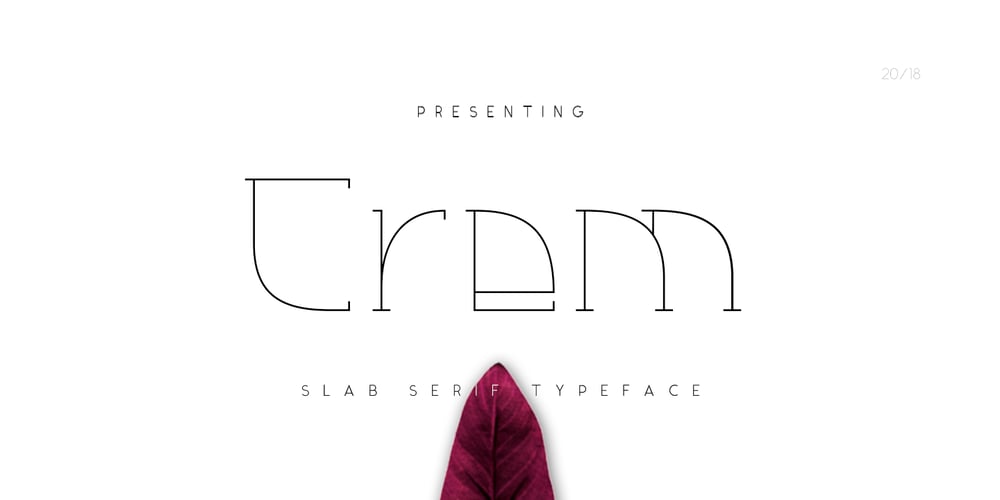
Crem Slab Font Family was designed by Vladimir Tsagolov and published by LomoHiber. Crem Slab contains 14 styles and family package options. Crem is a big Slab Serif font family with gentle minimalistic forms. Variability of styles allows you to experiment very widely with moods Crem reflects. Perfect for use in magazines, posters, logotypes, quotes, invitations, flyers, greeting cards, product packaging, book covers, etc. Crem Slab consists of 14 styles total, has wide language support and dozens of ligatures. Hope you’ll enjoy using Crem Slab!